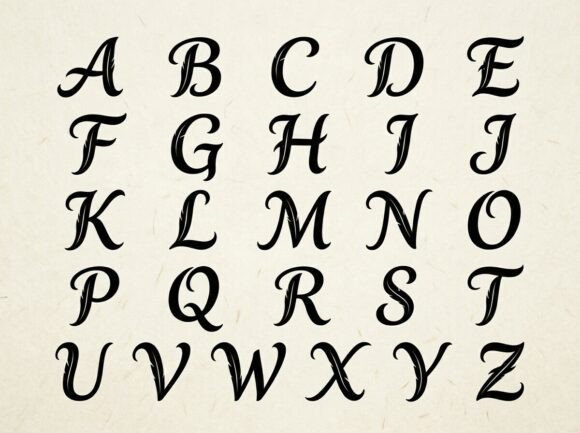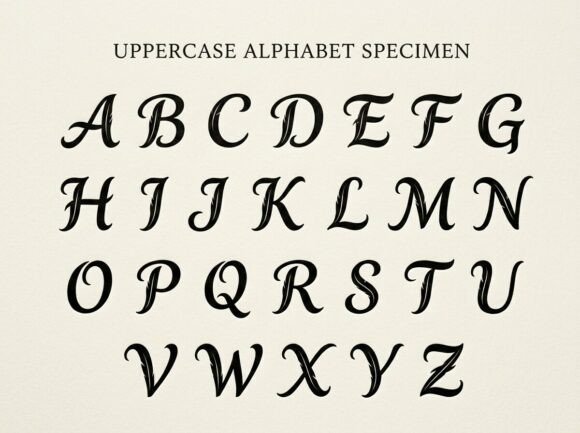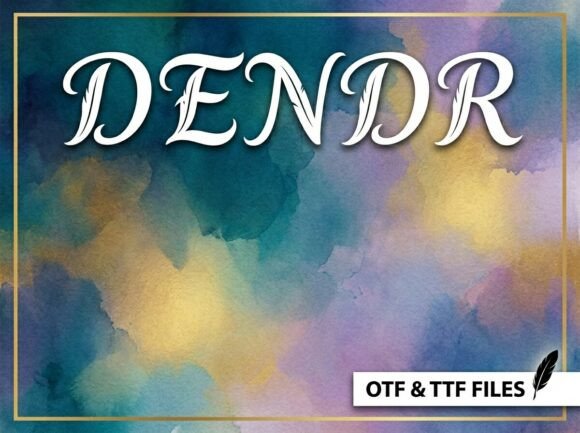
Introducing Dendr Font: A Stunning Decorative Display Font
Are you tired of using the same old fonts for your designs? Do you want to make a statement and stand out from the crowd? Look no further than Dendr Font, a unique and artistic display font that’s perfect for creators who want to add a touch of elegance and sophistication to their work.
Dendr Font is a decorative display font that’s designed to be the center of attention. With its unique artistic elements and strong visual personality, this font is sure to make your designs pop. Whether you’re creating bold headlines, artistic logos, or creative packaging, Dendr Font is the perfect choice. Its versatility and professional finish make it suitable for a wide range of design projects.
Before making a purchase, please note that Dendr Font is an ALL-CAPS (Uppercase Only) display typeface. This means that it does not include lowercase letters. It’s specifically designed for high-impact headlines, logos, and decorative initials where every letter is a work of art.
Dendr Font is a dream come true for designers and crafters who want to add a touch of elegance and sophistication to their work. With its unique and artistic elements, this font is perfect for:
- Bold Headlines: Make a statement with your headlines using Dendr Font’s bold and eye-catching letters.
- Artistic Logos: Create a lasting impression with a custom logo that showcases your brand’s personality and style.
- Creative Packaging: Stand out on store shelves with packaging that features Dendr Font’s unique and artistic elements.
Tips for Using Dendr Font
To get the most out of Dendr Font, here are a few tips:
- Use it sparingly: Because Dendr Font is a decorative display font, it’s best used sparingly to make a maximum impact.
- Experiment with colors and textures: Dendr Font looks great with bold colors and textures, so don’t be afraid to get creative.
- Pair it with a simple font: For body text, pair Dendr Font with a simple font to create a striking contrast.